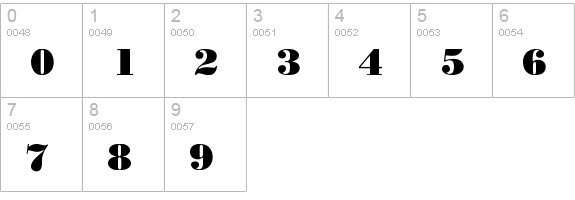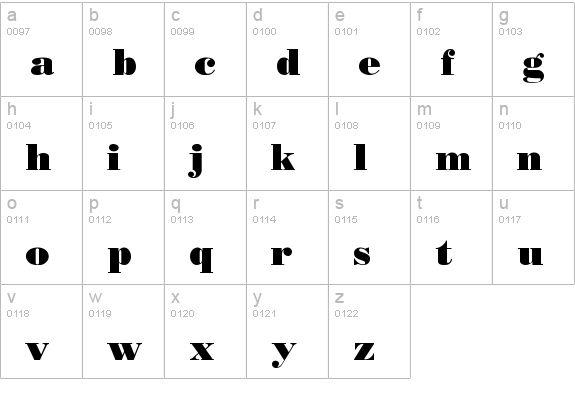
QTBodiniPoster Regular Font Details
QTBodiniPoster Regular is the standard, neutral variant in the QTBodiniPoster typeface family \xE2\x80\x94 well suited to general body text, paragraphs, and standard typographic work.
QTBodiniPoster Regular font is a versatile and eye-catching typeface that is sure to make a statement in any design project. With its bold and modern letterforms, this font is perfect for creating attention-grabbing headlines, posters, banners, and more. The QTBodiniPoster Regular font offers a unique blend of elegance and strength, making it suitable for a wide range of applications. Whether you're designing a promotional flyer, a magazine layout, or a website header, this font will add a touch of sophistication and professionalism to your work. What sets QTBodiniPoster Regular font apart is its availability for free download at FontsMarket.com. This means that you can easily access and use this font in your projects without any cost. FontsMarket.com offers a wide range of high-quality fonts, and QTBodiniPoster Regular is no exception. Whether you're a professional designer or a hobbyist, QTBodiniPoster Regular font is a must-have addition to your font collection. Its clean and clear design ensures legibility at any size, while its bold and impactful presence makes it suitable for both print and digital media. With QTBodiniPoster Regular font, you can effortlessly create visually stunning designs that leave a lasting impression. So why wait? Head over to FontsMarket.com and download this amazing font for free today!